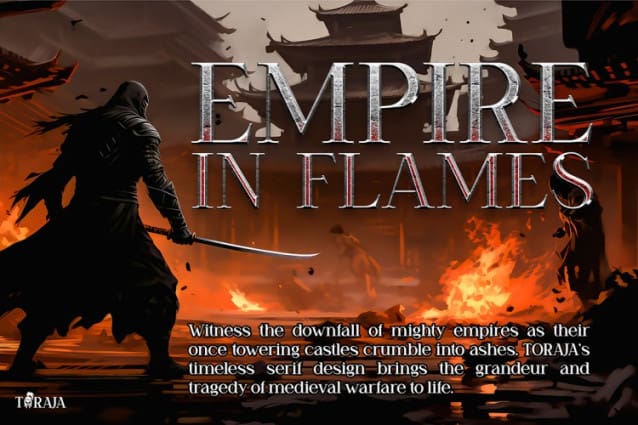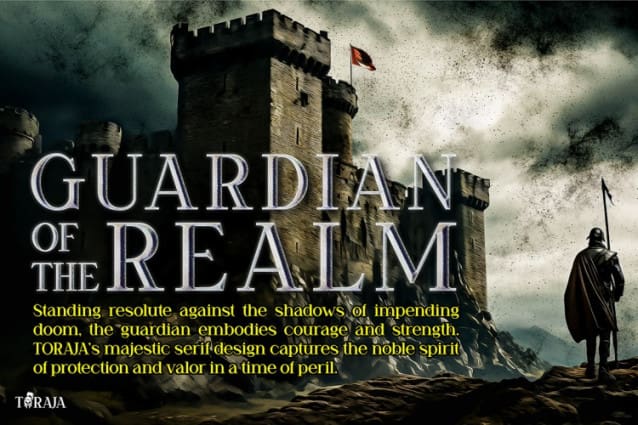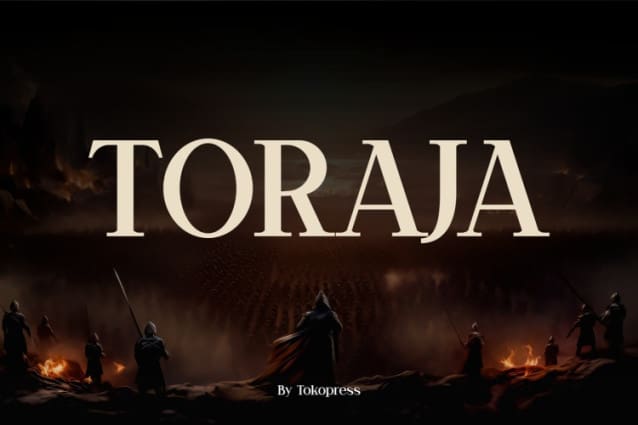
Toraja Font
Toraja Font, blends sophistication with strength, merging modern minimalist elements and a classic serif design. Its bold, sharp edges exude power, while the refined serifs add timeless elegance. This combination makes TORAJA a versatile display font that commands attention.
Designed with precision, TORAJA ensures excellent readability at smaller sizes while maintaining its striking presence in larger formats. The font’s proportions and kerning are carefully crafted for harmony and visual appeal. Whether used in digital campaigns or personal branding, TORAJA’s premium aesthetic elevates any project.
TORAJA’s imposing style is perfect for logos, titles, and headlines that need to make a lasting impression. Its cinematic vibe, highlighted by its dramatic presentation, evokes epic narratives and bold creative ventures. As an “Instagram Font TORAJA,” this typeface stands out in social media graphics, captivating attention with its authoritative yet approachable design.